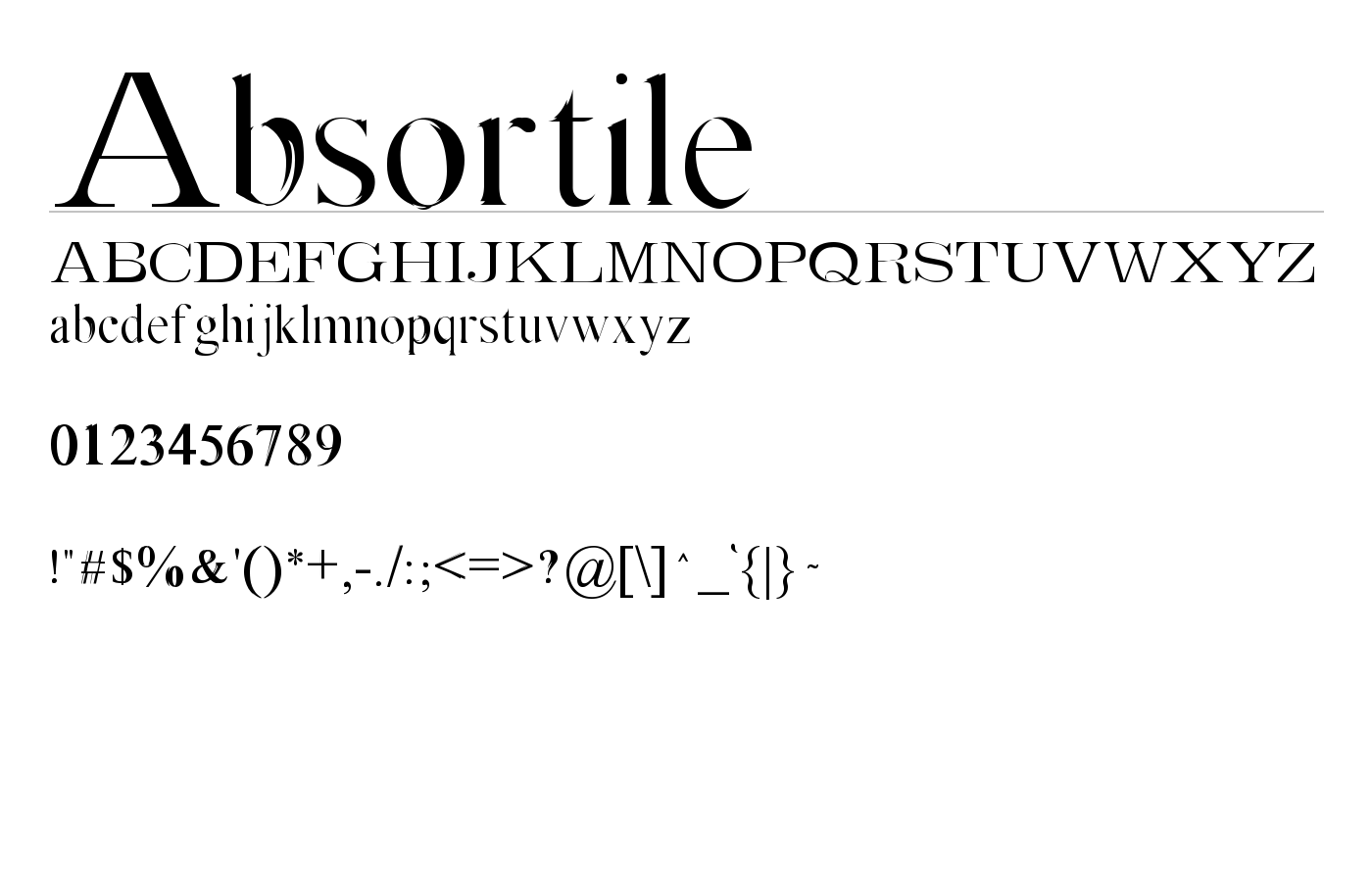
Absortile is a sophisticated serif font with a modern twist, featuring high contrast strokes and delicate, sharp serifs that create an elegant and refined look. Its tall x-height and unique letter shapes, such as the distinctive lowercase "g" and stylized uppercase "R," make it ideal for luxury branding, editorial headlines, and decorative purposes where a touch of class and contemporary style is desired. This font works best in designs that need to convey sophistication and creativity while maintaining readability and strong visual impact.
Absortile Font